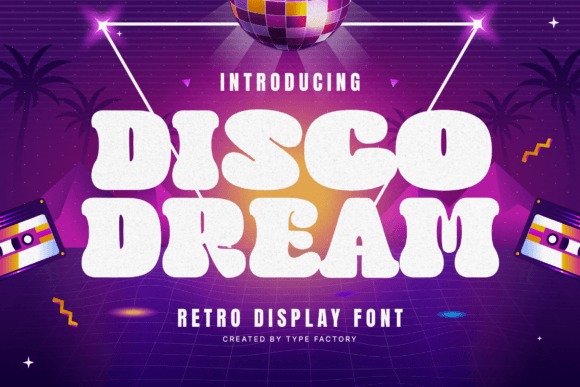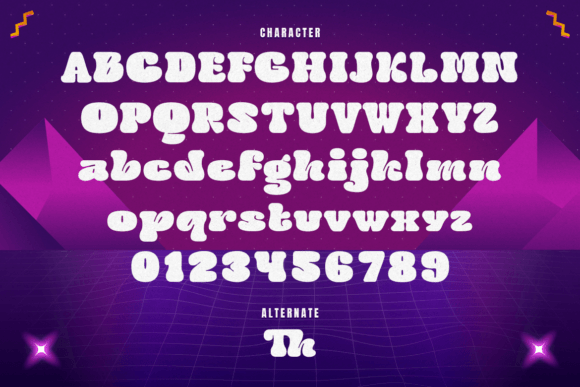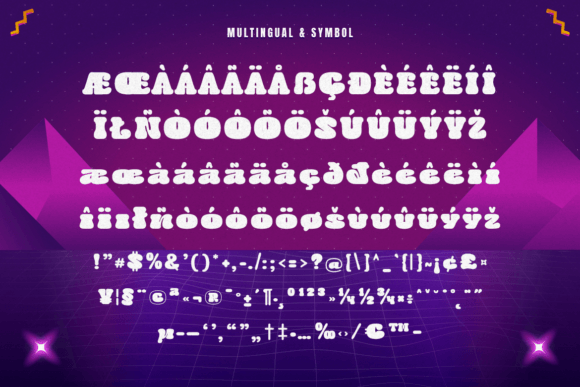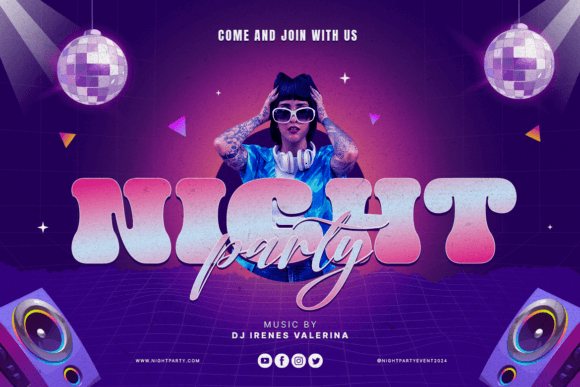
Disco Dream Font: Groovy 70s Retro Typography for Bold Headlines
About the Disco Dream Font
The Disco Dream Font offers a perfect balance of form and function for your design needs. Disco Dream encapsulates the high-energy pulse of the vibrant 70s disco scene. This retro display font dances boldly with spirited, groovy characters and an irresistibly funky style. Its vivacious appeal is ideal for crafting standout posters, unique album covers, engaging event flyers and nostalgic branding that sizzles with excitement. Imbued with the true spirit of the disco days, Disco Dream pulses with an electrifying charm guaranteed to bring any design to life. So, whether you’re working on material for a lively party, planning a throwback event or simply looking to sprinkle a little retro charm, Disco Dream carries the disco ball into the heart of your project.
Disco Dream Font Usage Examples
Disco Dream Font Example